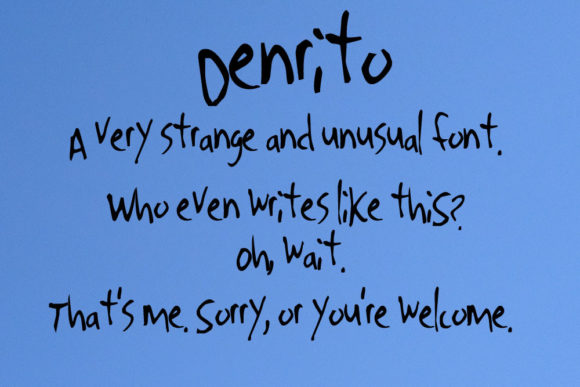
Denrito Font
About Denrito Font
Denrito is a quirky and fun handwritten font. The font is suitable for any branding project like logo, t-shirt printing, sporting design, and many more. It will look outstanding in a wide range of contexts.